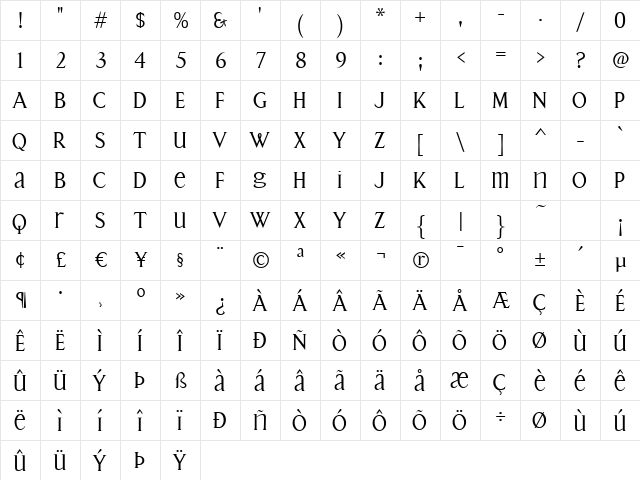
Anarcharsis Unicase
Design Context for Anarcharsis Typeface
Anarcharsis offers clean, dependable letterforms without strong stylistic allegiance, making it a practical choice for designers who need flexibility.